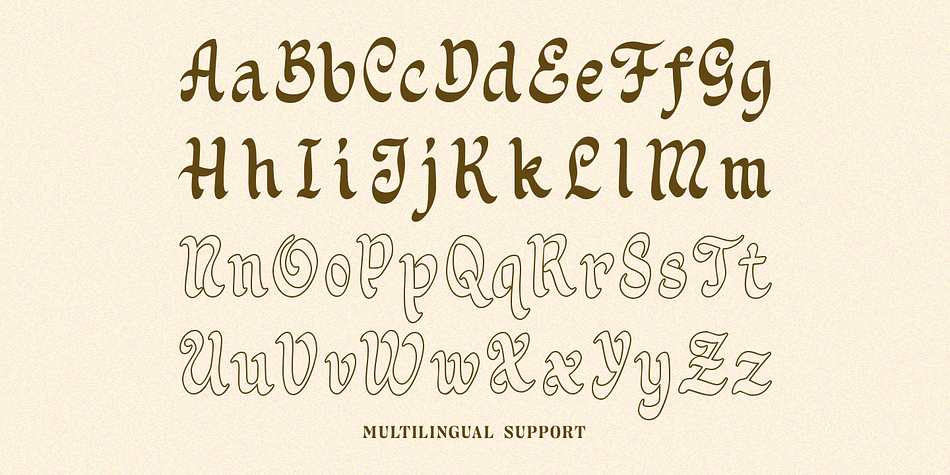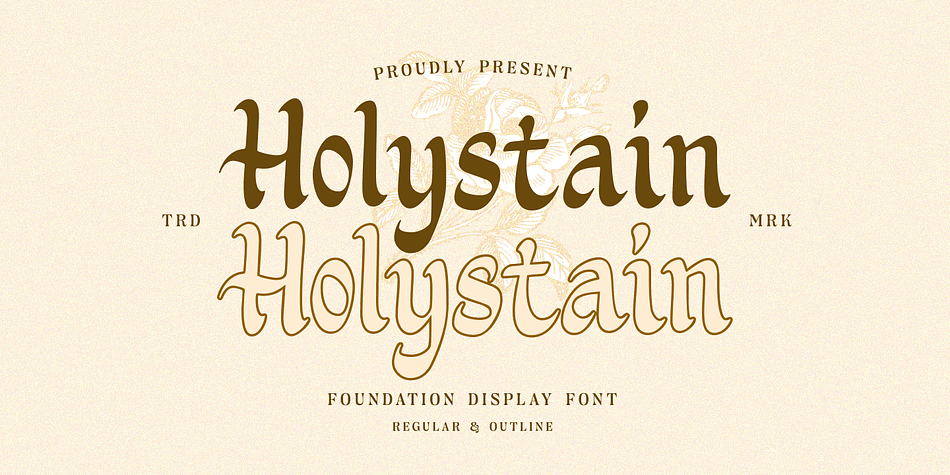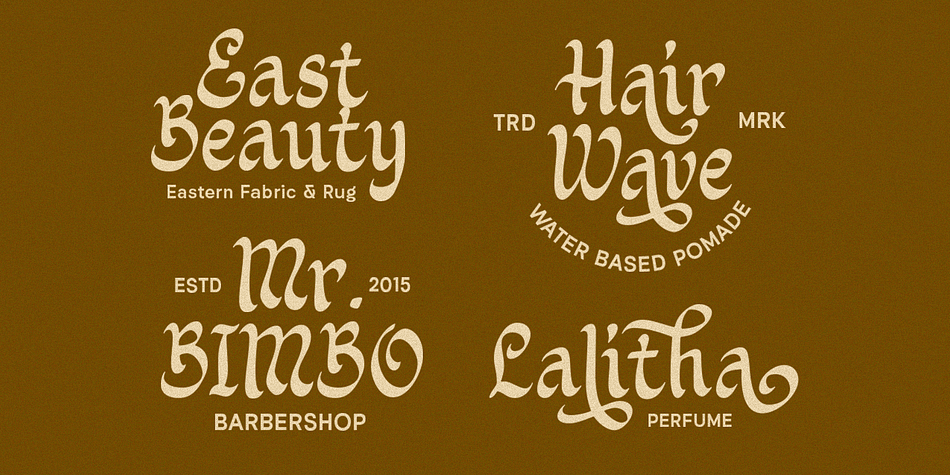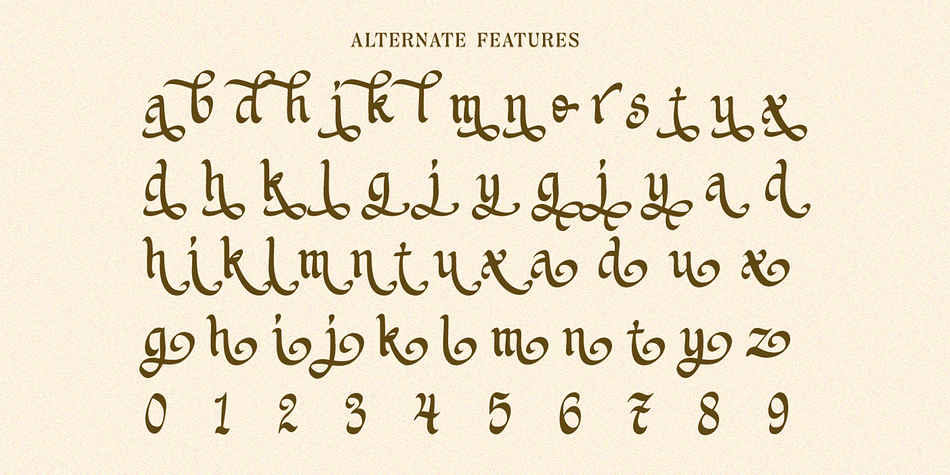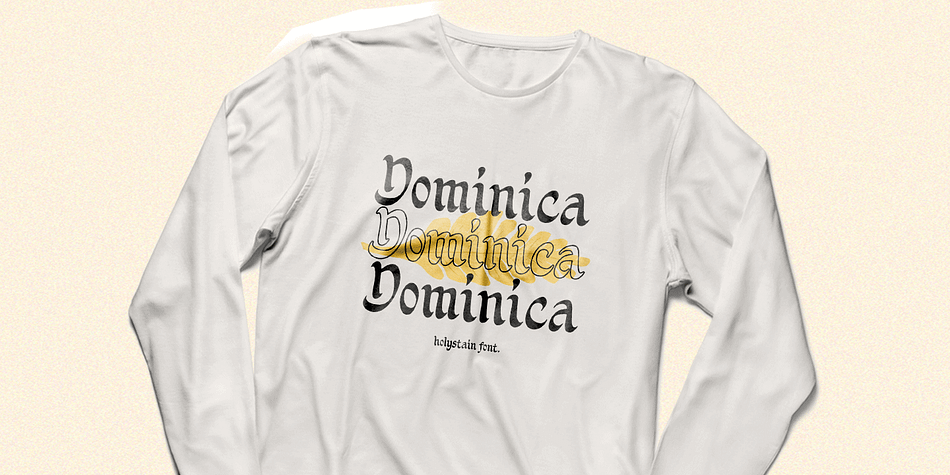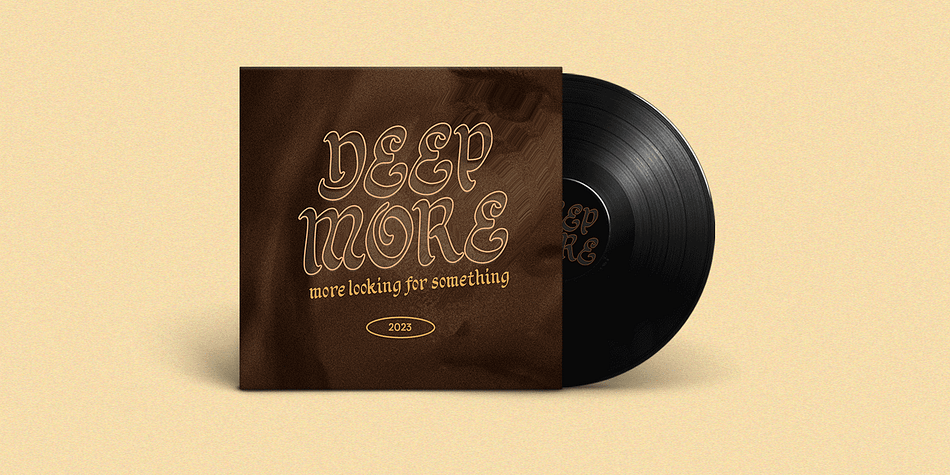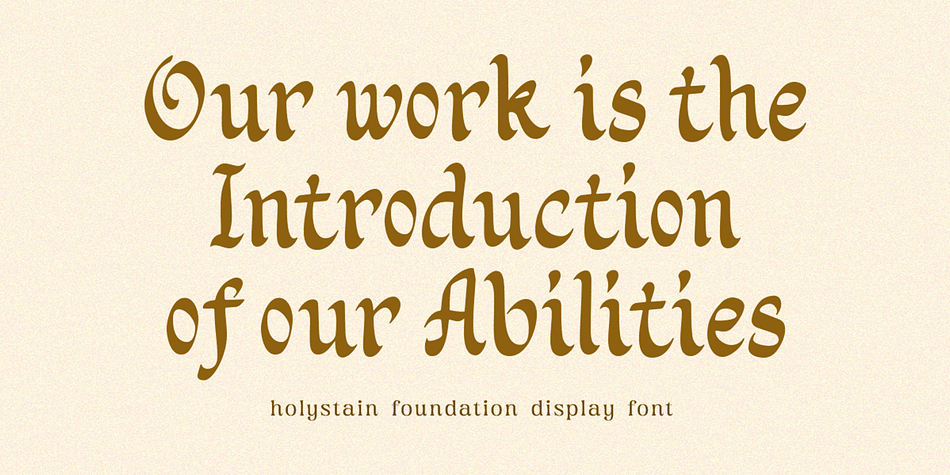
Holystain
Designed by Hendry Juanda, Holystain is a blackletter, historical and script font family. This typeface has two styles and was published by Letterhend Studio.
Holystain is a Foundation display font that strikes the perfect balance between sophistication and approachability. Its classic charm makes it perfect for more traditional designs, while its casual feel makes it good for modern design. This font perfectly made to be applied especially in logo, and the other various formal forms such as invitations, labels, logos, magazines, books, greeting / wedding cards, packaging, fashion, make up, stationery, novels, labels or any type of advertising purpose.